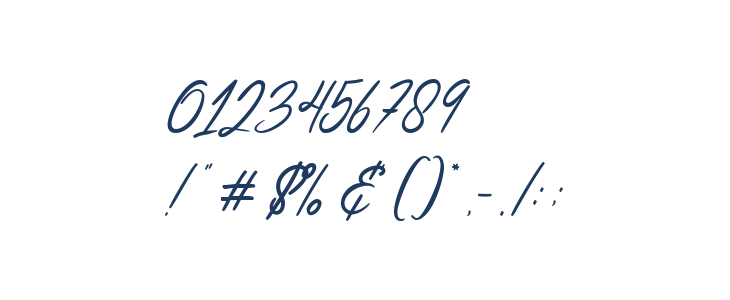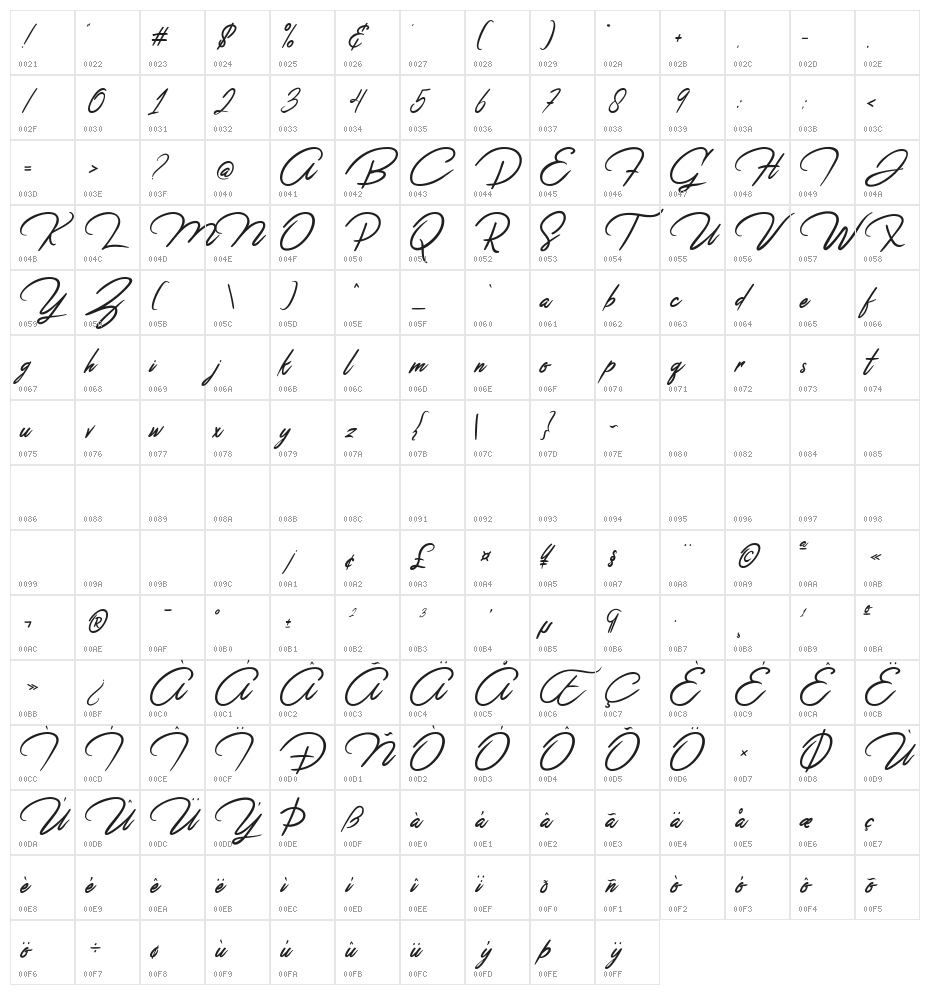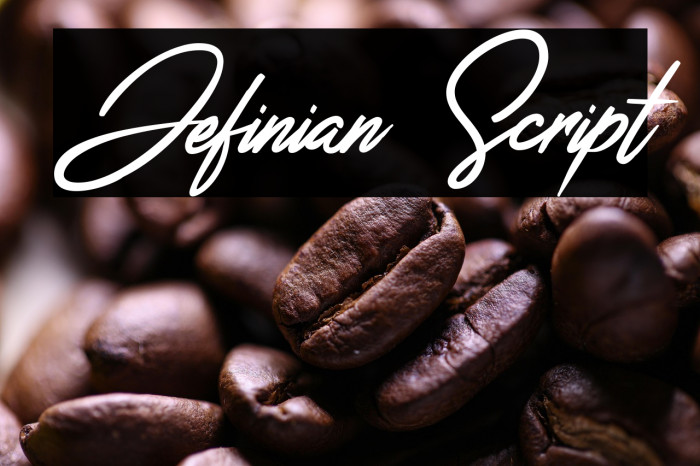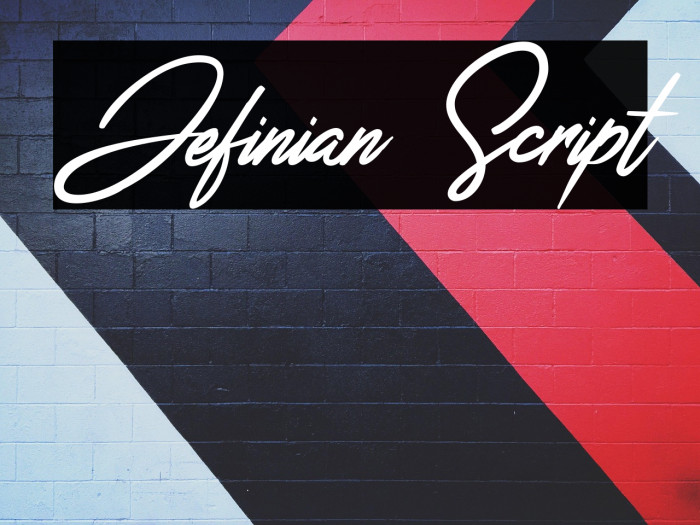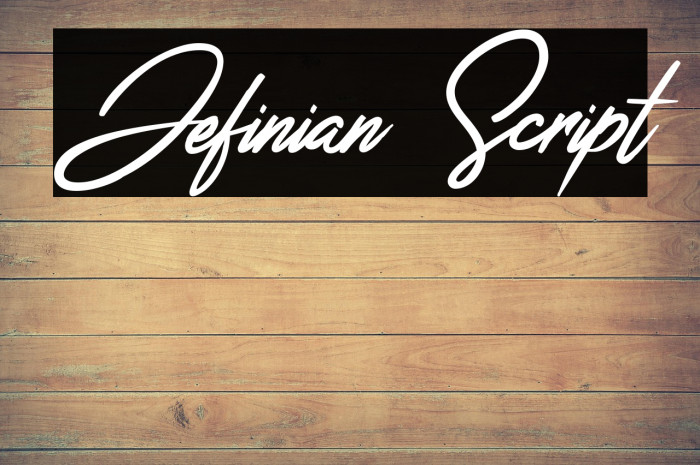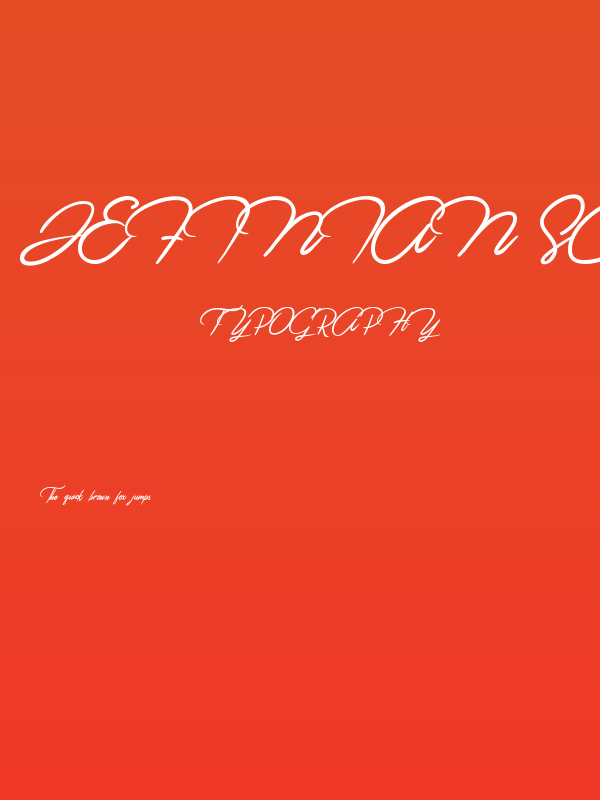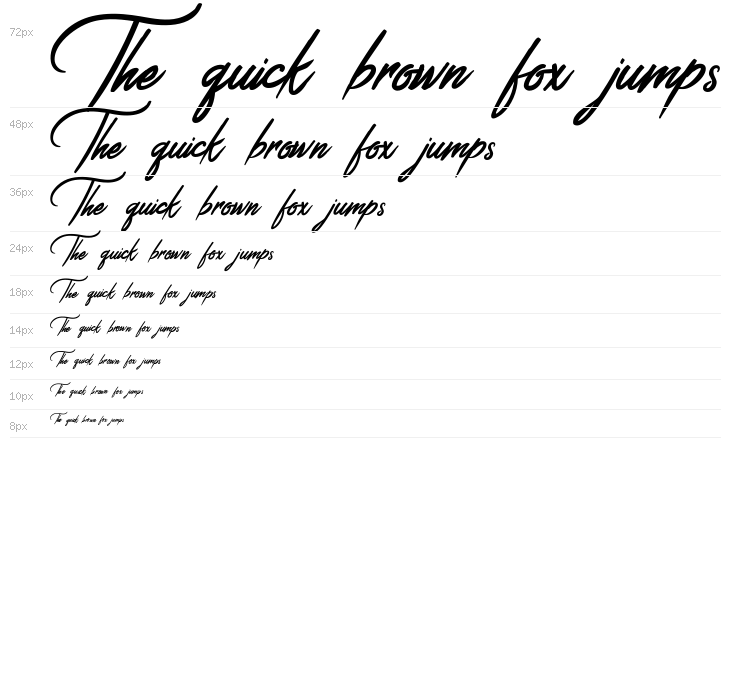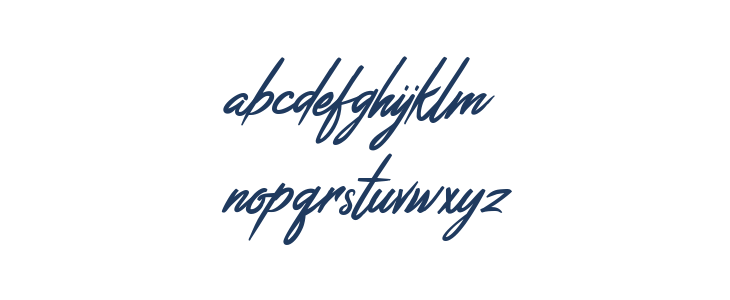
Jefinian Script Font
Jefinian Script Description
This script font exudes elegance and fluidity, characterized by its flowing, cursive style. The uppercase letters are ornate and connected, giving a sense of continuity and grace. The lowercase letters maintain a consistent slant, enhancing the script's dynamic appearance. Numbers and special characters are designed to complement the overall aesthetic, with smooth curves and a harmonious flow. This font is ideal for projects that require a touch of sophistication and personal flair, such as invitations, branding, and decorative text.
| Overall Style | Elegant, Decorative |
| Use Case | Headlines, Invitations, Branding |
| Proposed Projects | Ideal for wedding invitations, elegant branding, personal stationery, and decorative headings. |